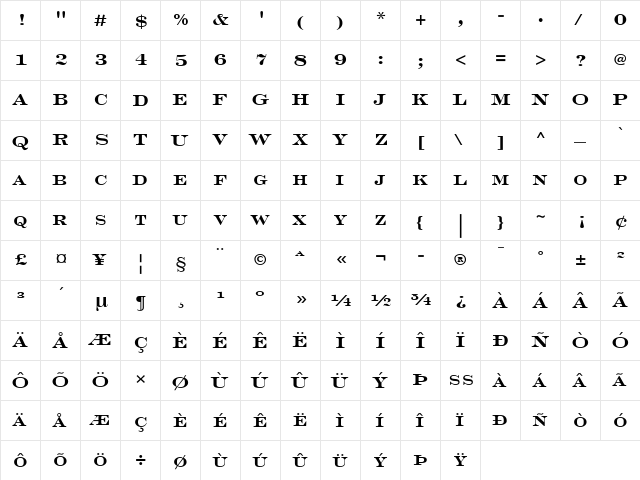
Engravers LH Bold Face Regular
Design Context for Engravers LH Bold Face Typeface
Engravers LH Bold Face takes a measured approach to typography — its balanced proportions and neutral character make it a reliable workhorse for both digital and print work. Its bold stroke weight gives it real presence on the page.